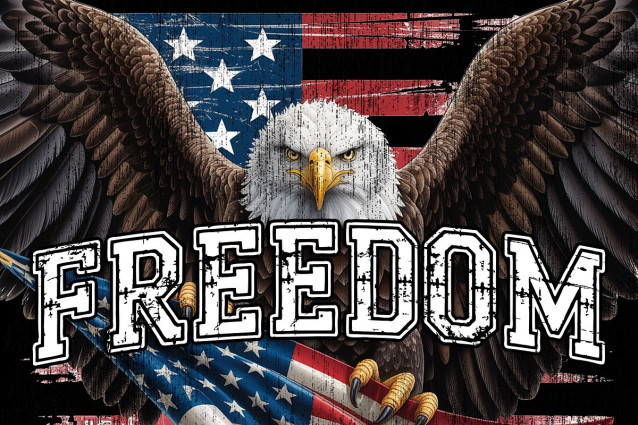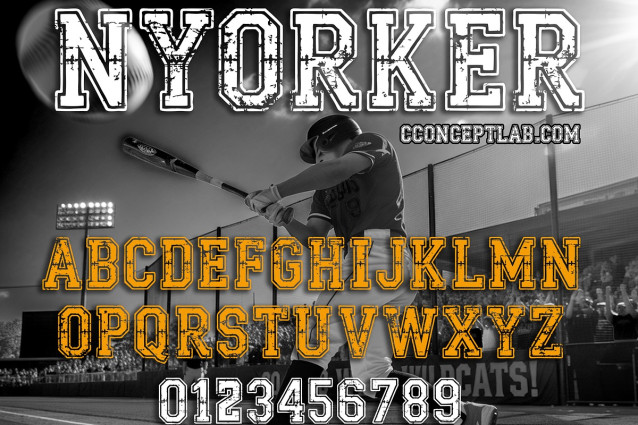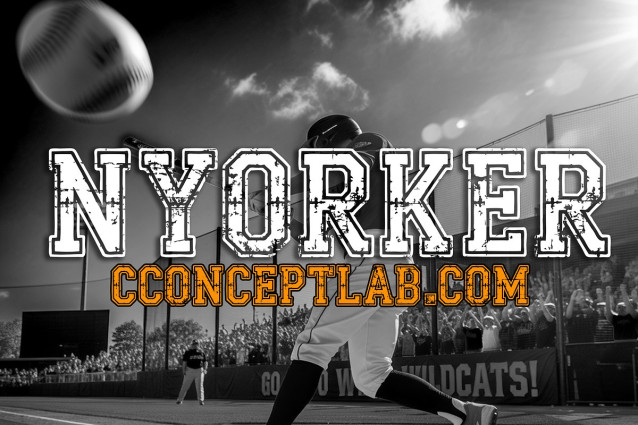
Nyorker Font
Nyorker Font is a captivating slab serif texture vintage font that embodies a timeless and nostalgic charm. With its bold and sturdy letterforms, this font brings a touch of vintage sophistication to your designs. The subtle texture adds depth and character, giving your text a weathered, worn-in feel. Whether you’re working on retro-inspired posters, branding, or signage, Nyorker Font delivers a perfect balance of classic elegance and rugged appeal.